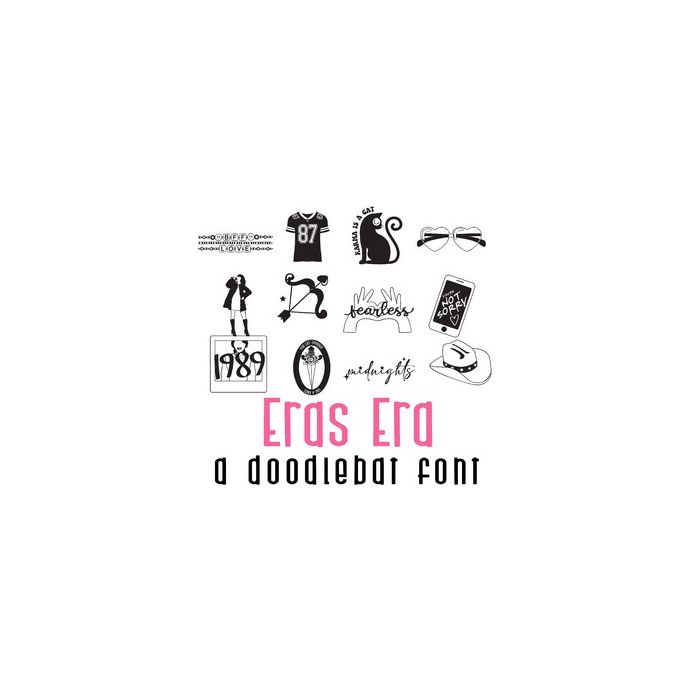
This fun doodlebat font features 26 more iconic images from your favorite pop artist. Perfect for parties, classroom, cards, gifts, planner stickers, scrapbook pages and more!